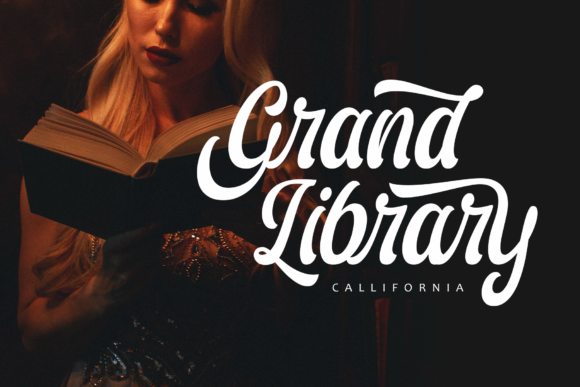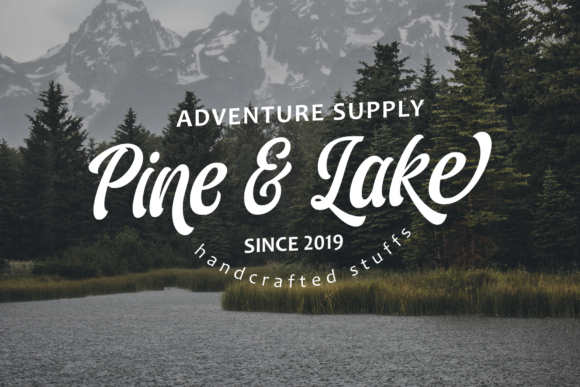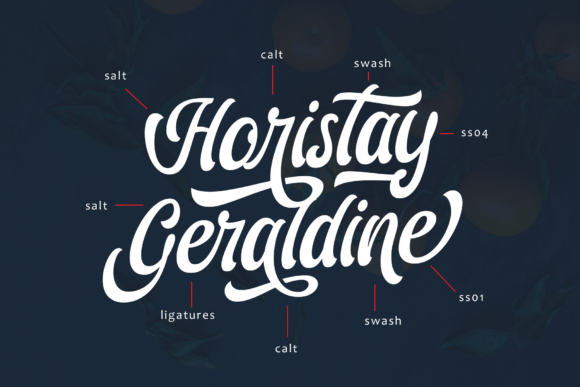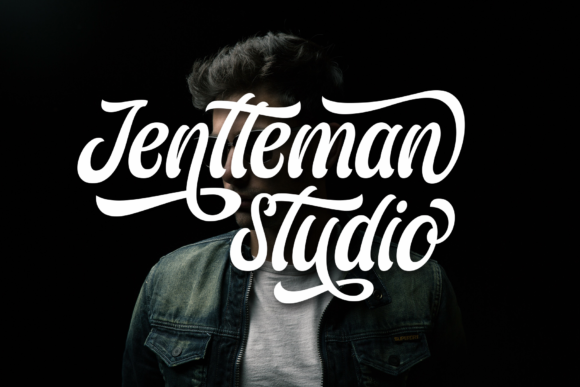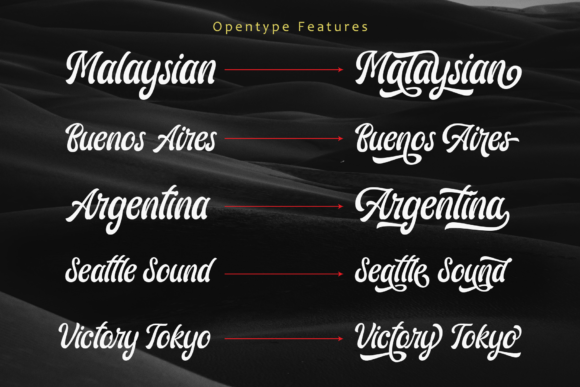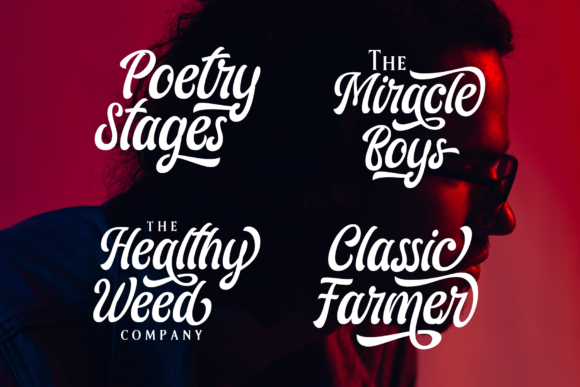
Unleash Your Creativity with the Perfect Script Font
You know that moment when a spark of inspiration strikes, and you can’t wait to bring your design idea to life? It’s a rush of excitement and creativity that drives us to push boundaries and try new things. For designers, finding the right font can be the missing piece that takes their project from good to great.
That’s where the Ariestha Script Font comes in – a one-of-a-kind script that exudes a beautiful, cool vibe. Its unique style and character make it the perfect addition to any design project, from elegant invitations to modern logos. Whether you’re a seasoned pro or just starting out, the Ariestha Script Font is a valuable tool in your design arsenal, offering endless possibilities for creative expression.
Ariestha Script Font Key Features
- Unique Characteristics: Handwritten, script font with elegant and flowing strokes, suitable for creative and artistic applications, such as invitations, posters, and watermarks
Ariestha Script Font Review
As a designer, I had the opportunity to work with the Ariestha Script Font, and I must say it’s a beautiful script font that can add a touch of elegance to any project. ✨ Here are some of its strengths:
- Unique and stylish design that sets it apart from other script fonts
- Works well for headings and titles due to its bold and dramatic flair
- Highly legible, making it suitable for body text as well
- Available in a range of weights, making it versatile for different design needs
However, like any font, Ariestha Script Font has its limitations. ⚠️ Here are some of the things I found:
- May not be the best choice for body text at very small font sizes due to its intricate details
- Not suitable for projects that require a very modern or minimalist aesthetic
- Some letters may be difficult to read for those with visual impairments
Overall, I think Ariestha Script Font is a great addition to any designer’s toolkit. It’s perfect for projects that require a touch of sophistication and elegance. With its unique design and high legibility, it’s a great choice for headings and titles, and it can also be used for body text with careful consideration of font size and weight.
Getting the Most Out of Ariestha Script Font
For the best results, use Ariestha Script Font in combination with other elegant fonts to create a sophisticated look. Experiment with different font sizes, colors, and alignment to achieve the desired effect. You can also use this font to add a personal touch to your designs.
Ariestha Script Font is ideal for use in wedding invitations, birthday cards, and other special occasion designs. It’s also suitable for branding and marketing materials, such as logos, brochures, and flyers.